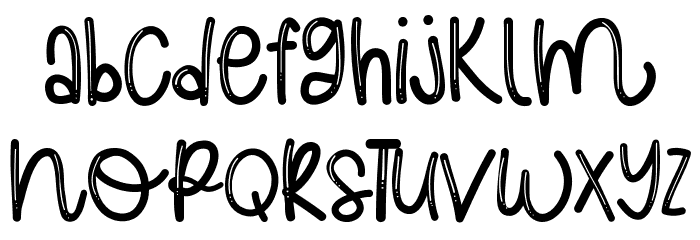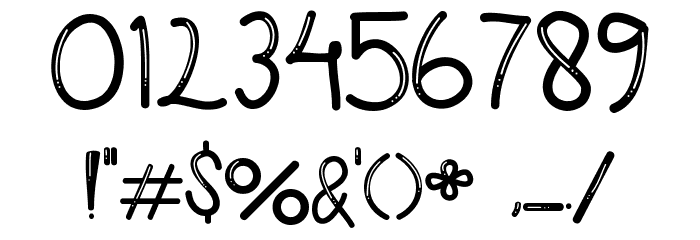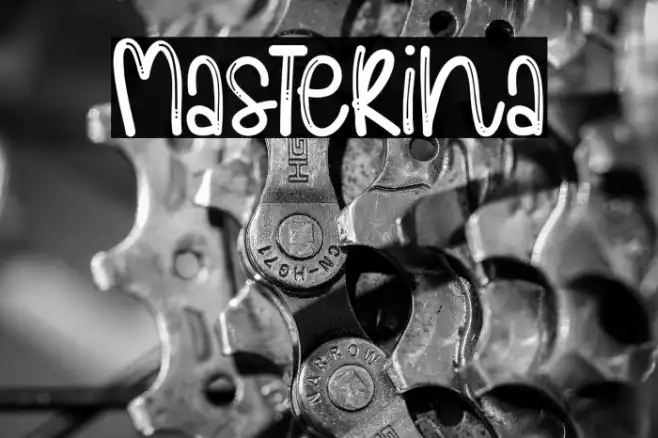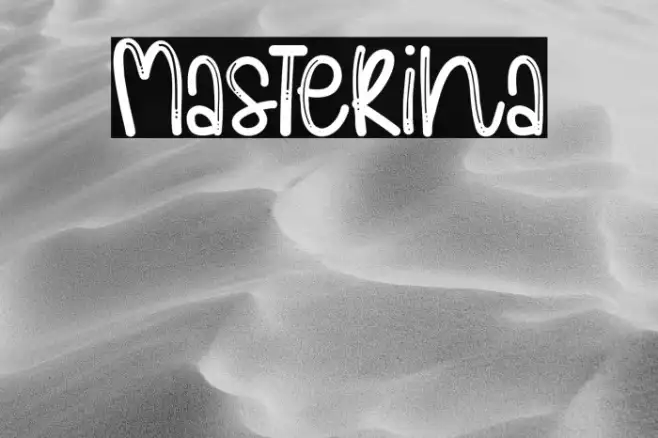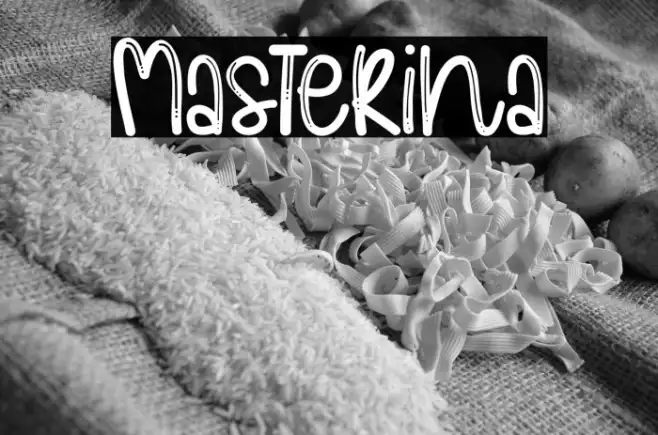
Masterina Font
This playful and whimsical font features a handwritten style with a unique flair. The letters are characterized by their rounded, flowing forms and slight irregularities, giving them a charming, casual appearance. The uppercase and lowercase letters maintain a consistent style, with the uppercase being slightly taller and more pronounced. The numbers and special characters follow the same playful design, making them cohesive with the alphabet. The strokes are bold and consistent, providing good readability while maintaining a fun and artistic vibe. This font is perfect for projects that require a personal touch or a creative, informal look.
A playful, handwritten font with bold, rounded strokes and a whimsical style.
- Proposed Projects: Ideal for greeting cards, children's books, playful branding, and creative posters.